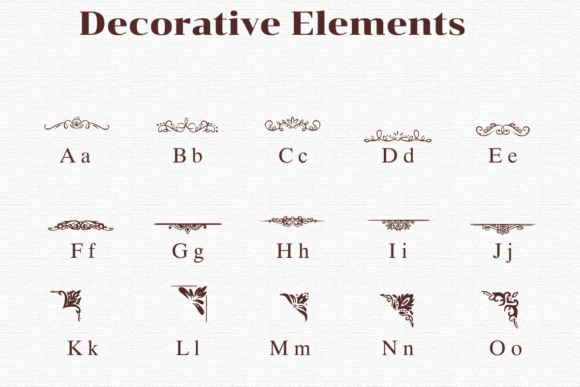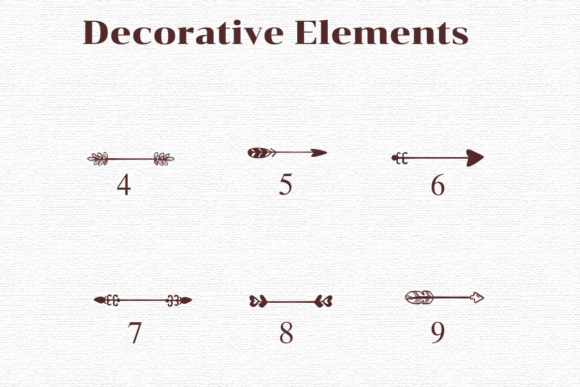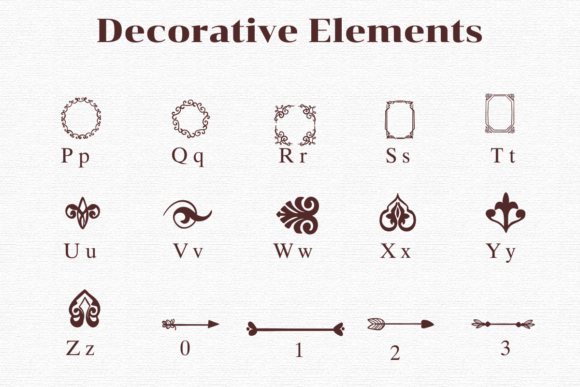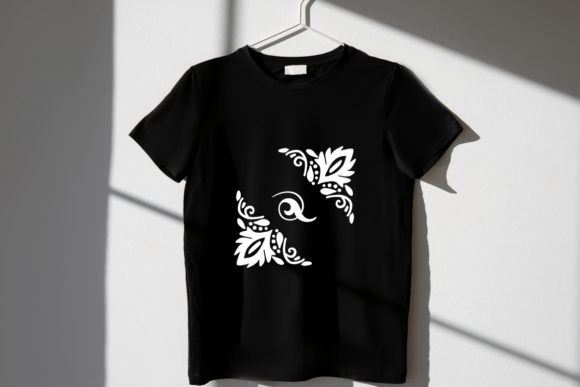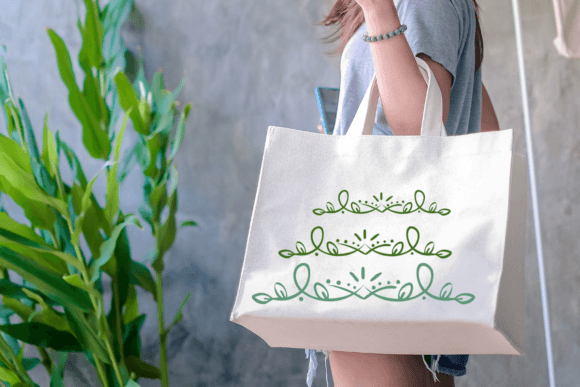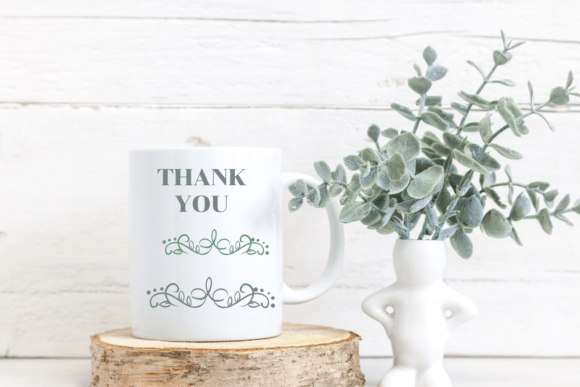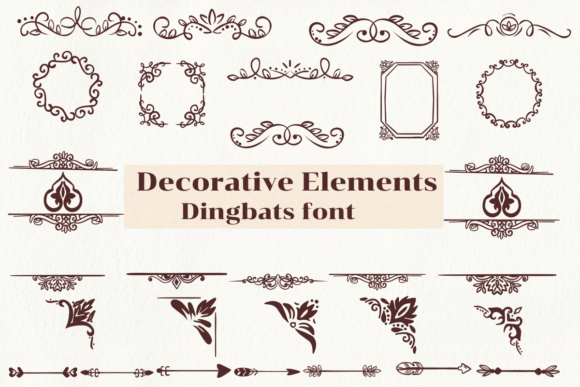
Unlocking Creativity with Decorative Elements Font
Are you looking to add a personal touch to your designs or craft projects? A decorative elements font, also known as a dingbat font, is a fantastic way to do just that. Imagine having a collection of small pictures or symbols at your fingertips, ready to be used in various creative endeavors. From greeting cards and posters to social media graphics and fun messages, decorative elements fonts can elevate your work and make it more visually appealing.
What is a Decorative Elements Font?
A decorative elements font is a type of font that features a set of symbols, icons, or pictures instead of traditional letters. These fonts are designed to provide a wide range of graphical elements that can be used to enhance and decorate text. They can include anything from simple shapes and lines to intricate illustrations and icons. The best part is that they can be used in any design or craft project that involves text, allowing you to add a unique and creative flair.
The Benefits of Using Decorative Elements Fonts
Decorative elements fonts offer a multitude of benefits for designers and crafters. Here are a few reasons why you should consider incorporating them into your work:
- Visual Interest: Decorative elements fonts add visual interest to your designs, making them more engaging and attention-grabbing.
- Creativeness: With a vast array of symbols and icons to choose from, decorative elements fonts provide endless opportunities for creative expression.
- Customization: You can use decorative elements fonts to create custom designs that reflect your personal style or brand identity.
- Versatility: Decorative elements fonts can be used in various projects, from digital designs to handmade crafts.
Types of Decorative Elements Fonts
Decorative elements fonts come in a wide range of styles and themes, making it easy to find the perfect one for your project. Here are some popular types:
- Icon Fonts: These fonts feature icons, such as social media logos, animals, or objects.
- Symbol Fonts: These fonts include a variety of symbols, like stars, hearts, or shapes.
- Illustrative Fonts: These fonts feature intricate illustrations, such as flowers, trees, or buildings.
- Vintage Fonts: These fonts have a distressed or vintage look, perfect for creating unique and nostalgic designs.
How to Use Decorative Elements Fonts
Using decorative elements fonts is easy and fun. Here are some tips to get you started:
- Pair with Traditional Fonts: Combine decorative elements fonts with traditional fonts to create visually appealing text combinations.
- Use as Accents: Use decorative elements fonts as accents to add a pop of color or interest to your designs.
- Create Custom Illustrations: Use decorative elements fonts to create custom illustrations or graphics.
- Experiment with Sizes and Colors: Play with different sizes and colors to add depth and dimension to your designs.
Decorative elements fonts are a powerful tool for designers and crafters looking to add a personal touch to their work. With their versatility, customizability, and creative possibilities, it’s no wonder why they’re becoming increasingly popular. Whether you’re creating greeting cards, posters, or social media graphics, decorative elements fonts can help you unlock your creativity and take your designs to the next level.